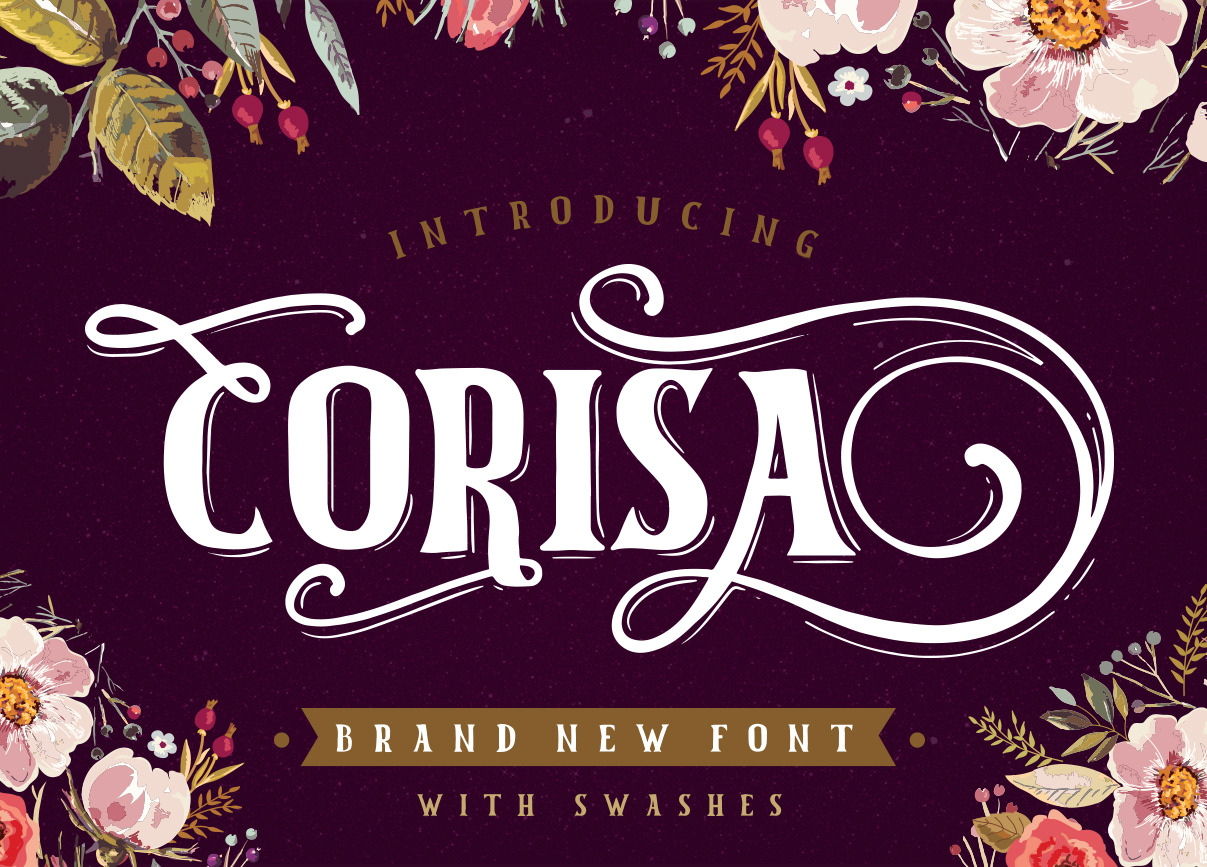
Corisa display font with swashes
Corisa is a display font with lots of alternates to play with. You can easily create t-shirt designs, mugs, or just play with typography using the multiple swashes included. Each character has between 5 and 11 alternates.